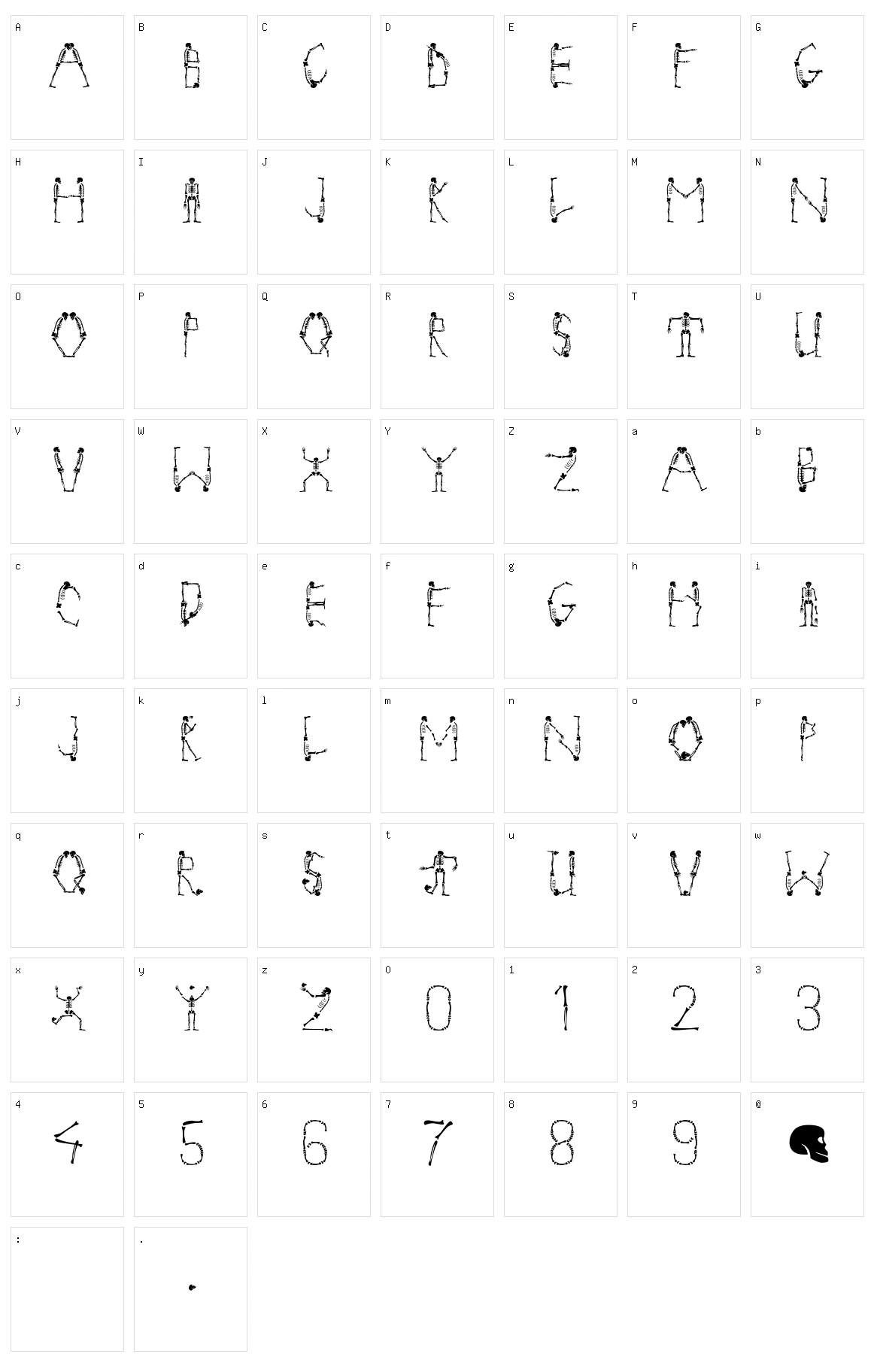
The free font Tango Macabre is carefully designed by Manfred Klein, showcasing a thoughtful balance of creativity and usability and falls under the Halloween font style. When you download the ZIP file, it contains only 80.69 KB of font files, making it lightweight and quick to download. Please review the license details below to understand permitted usage and distribution rights. If license information is not available, we recommend using this font for personal projects only or contacting the author directly for commercial usage permissions.